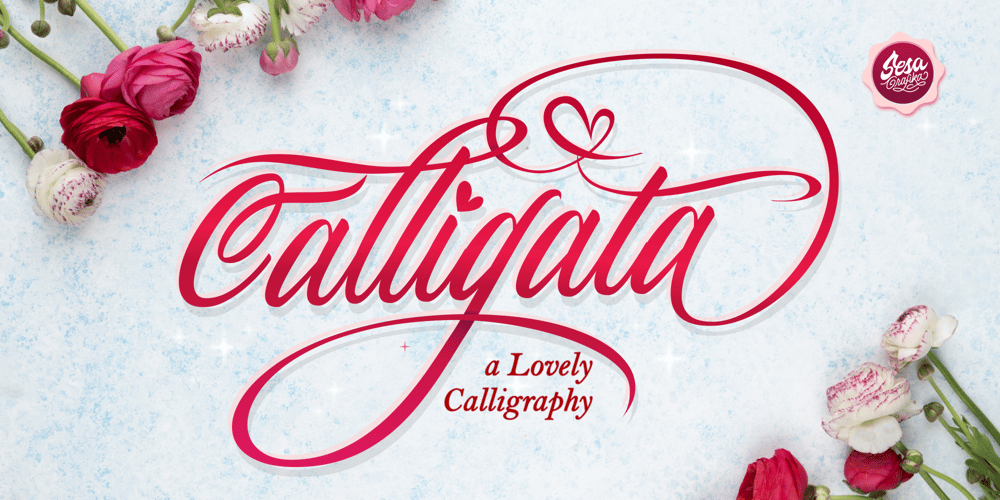
Calligata Script Font Family was designed by Wisesa Purba Giandar and published by Sesa Grafika. Calligata Script contains 1 styles and family package options. Calligata is a stylish and Lovely font suitable for a wide spectrum of applications. From greeting cards to headlines, this font will guarantee a romantic touch to each of your creations! This font is PUA encoded which means you can access all of the glyphs and swashes with ease!